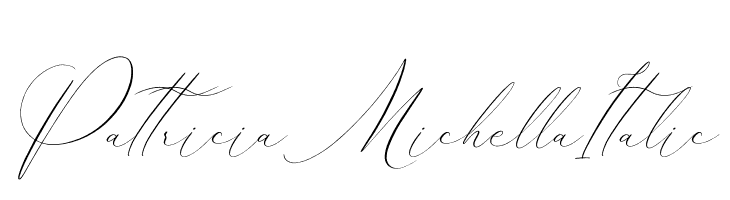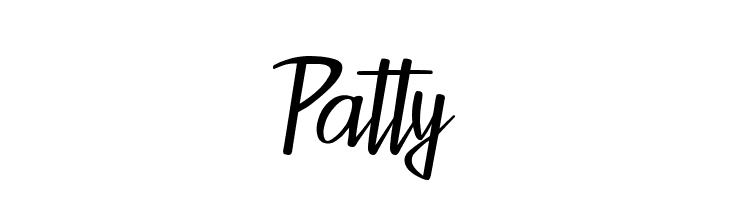
A bold, playful font with thick, rounded strokes and a vintage charm.
A bold and playful font with thick, rounded strokes and a whimsical style.
A bold, decorative font with thorny, barbed wire-like accents.
A gothic, thorny font with sharp, decorative elements.
A bold, decorative font with playful, eclectic patterns and whimsical style.
A playful, wavy outline font with a whimsical and decorative style.
A decorative and elegant script font with flowing cursive letters and stylish swashes.
A bold, playful font with a hand-drawn, whimsical style.
A futuristic, angular font with a geometric and modern design.
A futuristic, angular font with sharp, geometric shapes.
A futuristic, angular font with sharp edges and geometric shapes.
A rugged, hand-drawn font with a metallic, industrial aesthetic.
A bold, angular font with a modern, geometric style.
A playful, handwritten font with a casual and whimsical style.
A playful, handwritten font with thin, flowing lines and a whimsical style.
A 3D outline font with geometric precision and modern appeal.
A bold, geometric 3D wireframe font with a modern, architectural style.
A 3D outline font with a modern, geometric wireframe design.
A bold, 3D geometric font with a retro digital style.
A bold, cursive font with a dynamic and elegant style.
A bold, futuristic font with a three-dimensional, outlined style.
A bold, futuristic font with a 3D effect and geometric style.
A sleek, modern font with geometric influences and rounded edges.
A modern, geometric font with clean lines and a futuristic style.
A bold, geometric font with rounded edges and a strong visual presence.
A bold, 3D geometric font with textured interiors and shadow effects.
A playful, bold font with double-lined strokes and a hand-drawn feel.
A bold, playful font with a 3D effect and cartoonish style.
A modern, flowing script font with elegant slant and smooth curves.
A pixelated, retro-style font reminiscent of classic 8-bit video games.